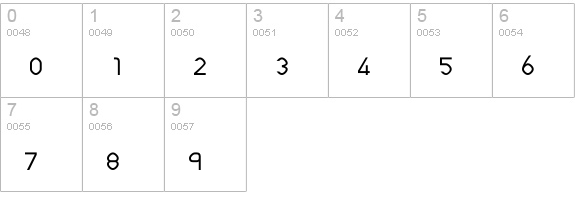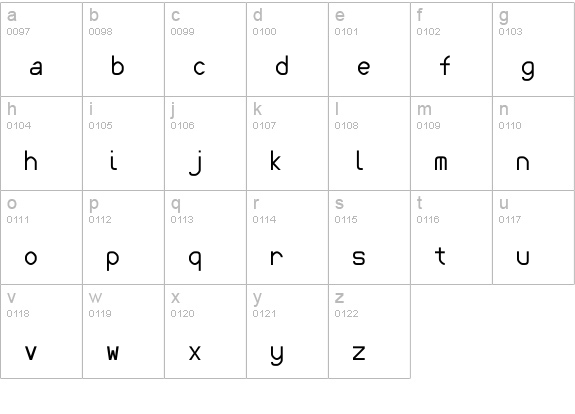
fn0t Font Details
Introducing fn0t font, a stunning typeface that effortlessly combines modern elegance with a playful twist. This versatile font is perfect for a wide range of design projects, whether you're creating eye-catching logos, captivating headlines, or stylish branding materials. With its unique blend of clean lines and subtle curves, fn0t font exudes a sense of sophistication that is sure to elevate any design. Its carefully crafted letterforms are both distinctive and legible, making it ideal for both print and digital applications. But what truly sets fn0t font apart is its accessibility - it's completely free! That's right, this remarkable font is freely available to download at FontsMarket.com. Now, you don't have to compromise on quality or style when it comes to your creative endeavors. So why wait? Discover the endless possibilities that fn0t font unlocks and let your imagination soar. Whether you're a seasoned designer or just starting out, this font is here to inspire and empower you to bring your ideas to life. Download fn0t font today and embark on a design journey like no other.